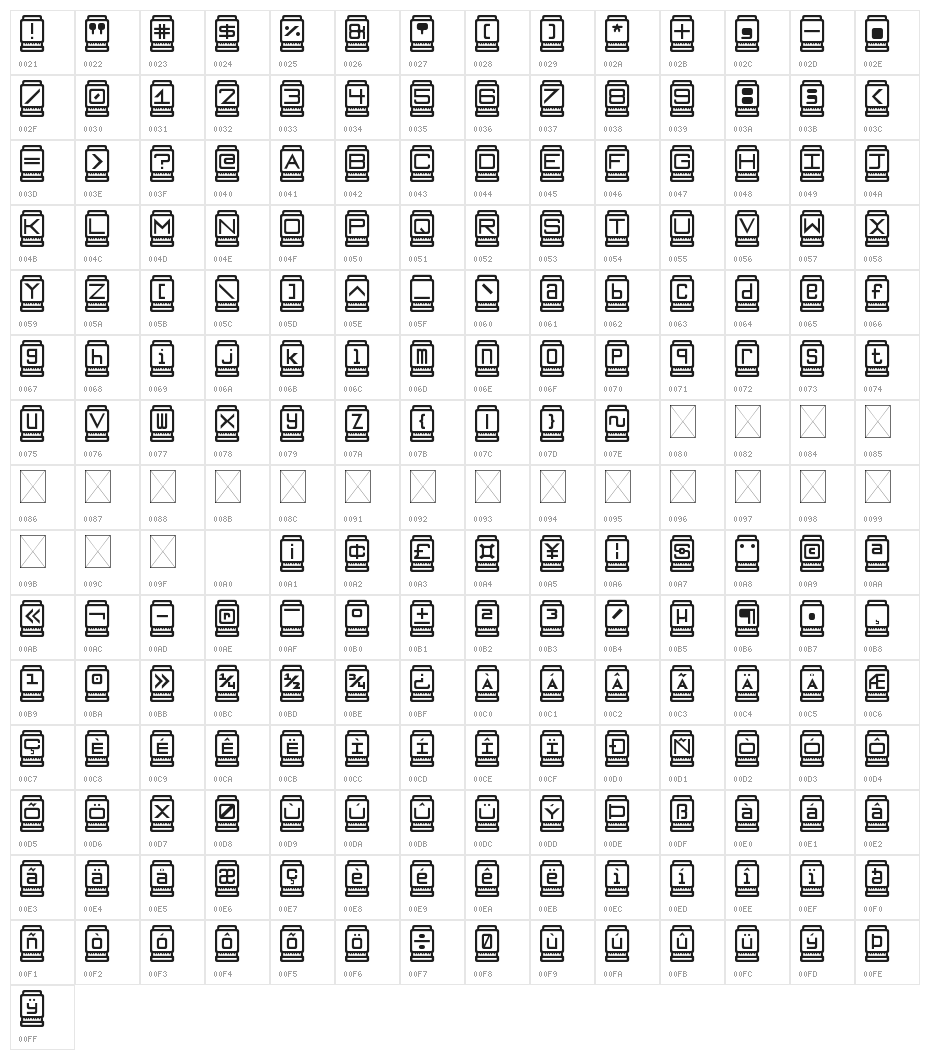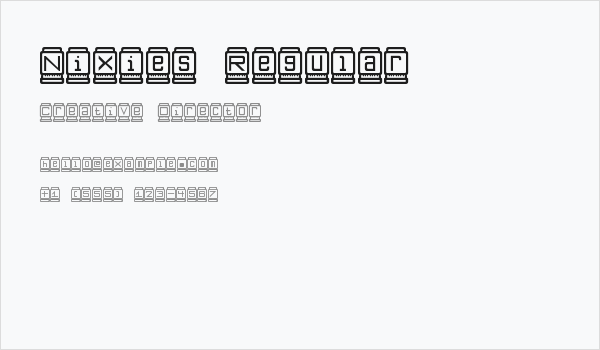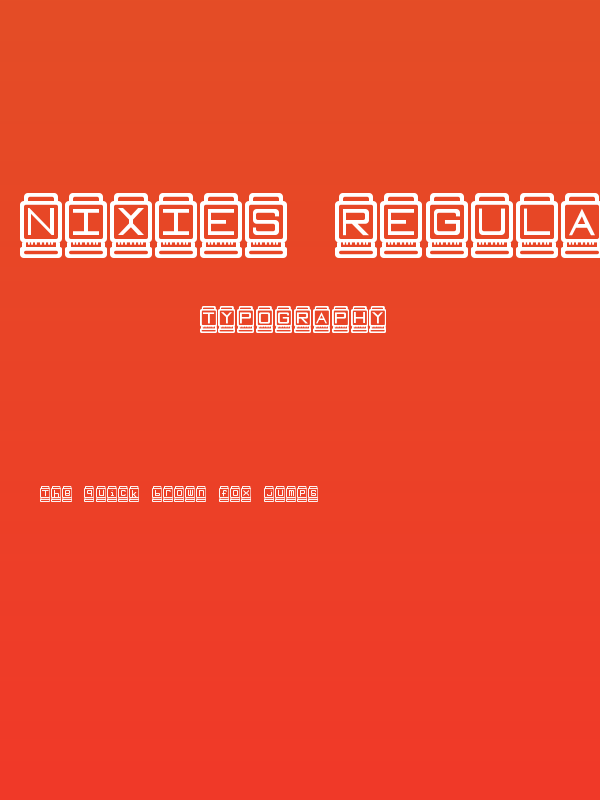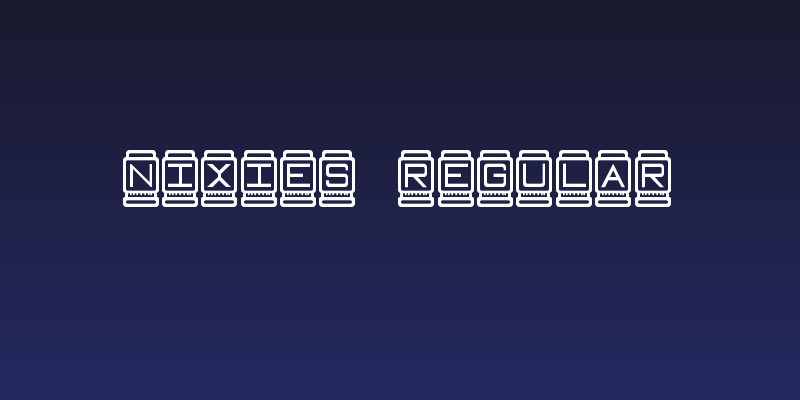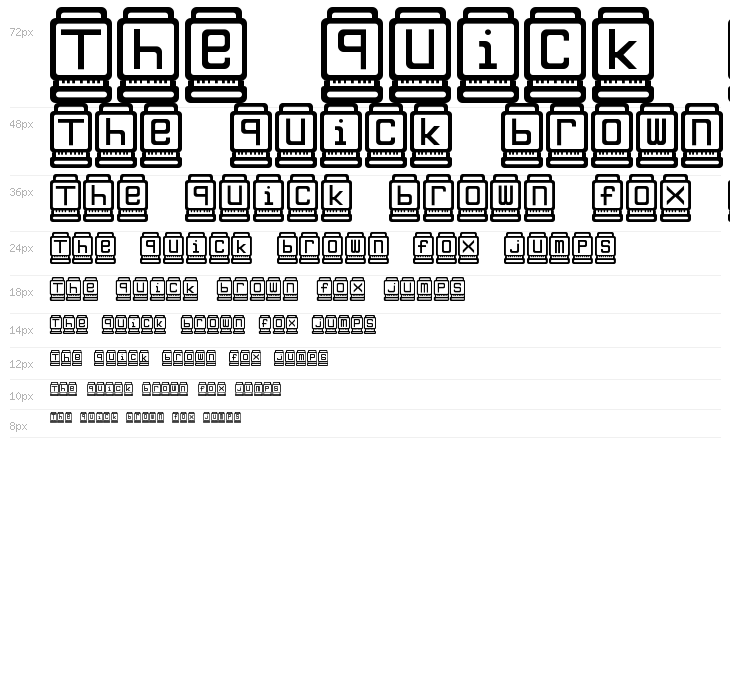
Nixies Regular Font
Nixies Regular Description
This font features a unique, retro-inspired design reminiscent of vintage technology displays. Each character is enclosed within a rectangular frame, giving it a distinct, digital appearance. The lines are bold and consistent, creating a strong visual impact. The geometric shapes and uniform stroke width contribute to a modern yet nostalgic aesthetic. The characters are evenly spaced, ensuring readability while maintaining a cohesive look. This font is ideal for projects that aim to evoke a sense of nostalgia or pay homage to early digital displays.